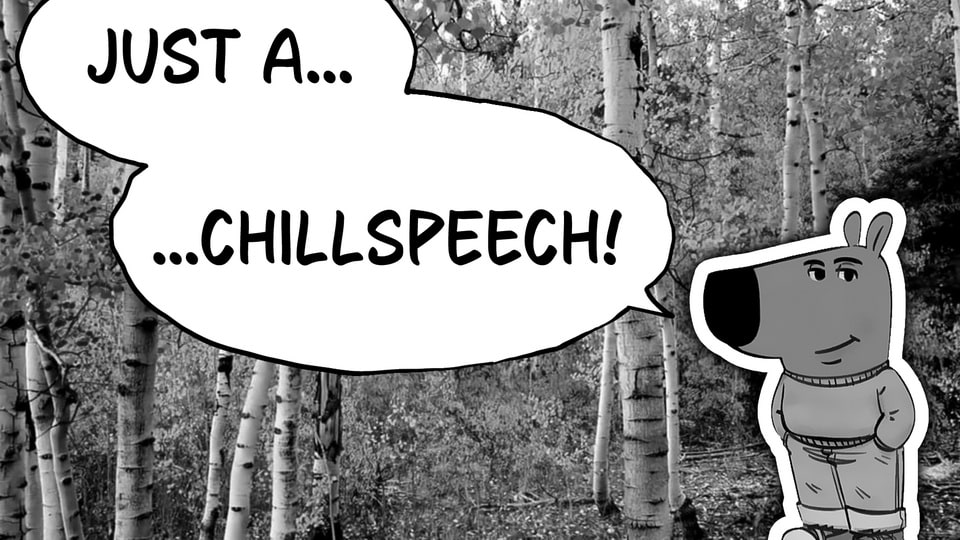
Download ChillSpeech font, a relaxed hand-drawn typeface that captures the essence of effortless creativity with its natural, organic strokes and understated charm.